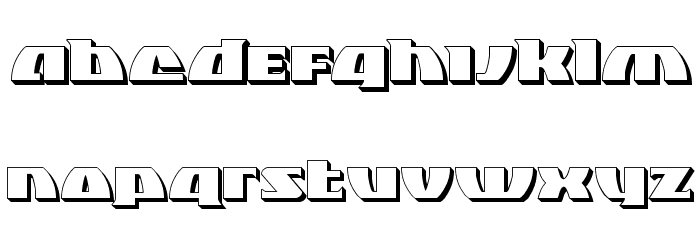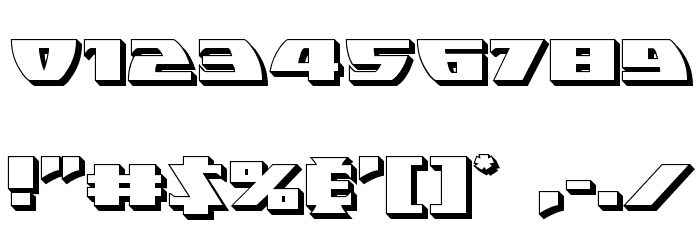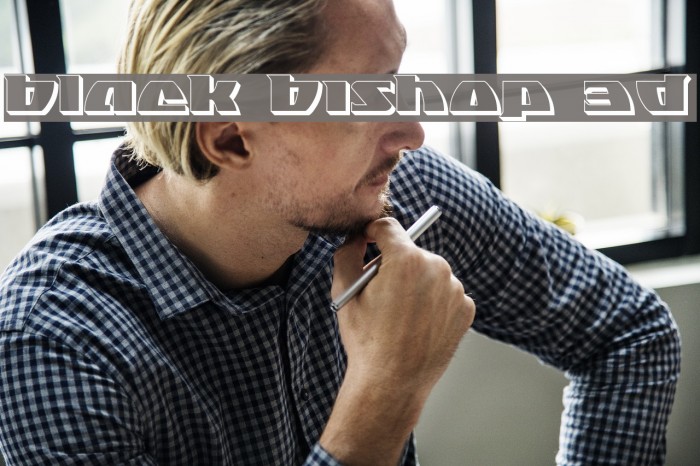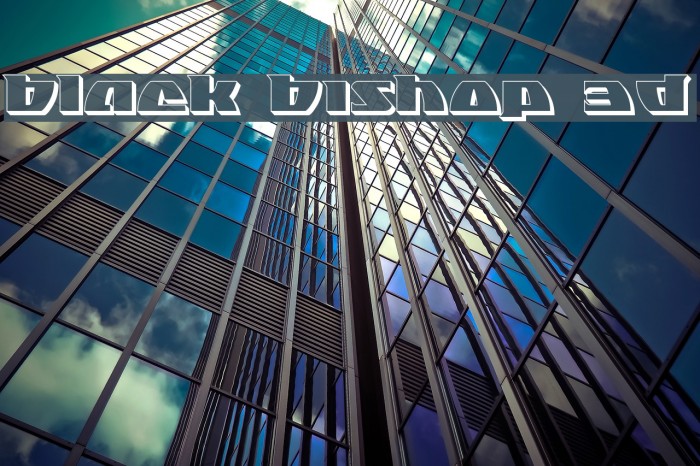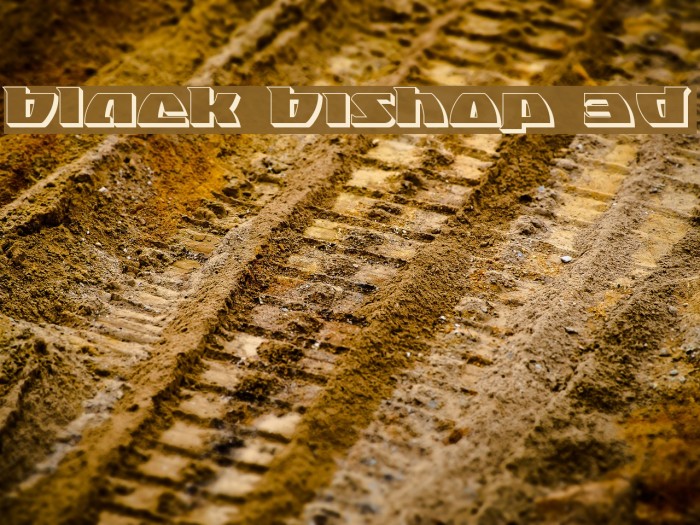
Black Bishop 3D Font
This font features a bold, three-dimensional style with a strong, shadowed effect that gives each character a sense of depth and solidity. The letters are blocky and geometric, with sharp angles and clean lines that create a futuristic and dynamic appearance. The uppercase and lowercase letters maintain a consistent style, with the lowercase being slightly more compact. Numbers and special characters follow the same design principles, ensuring uniformity across all glyphs. The font's boldness and 3D effect make it stand out, ideal for attention-grabbing designs.
A bold, 3D geometric font with a futuristic and dynamic style.
- Proposed Projects: Ideal for video game titles, sci-fi movie posters, or any project needing a bold, futuristic look.
- Overall Style: Modern, Futuristic